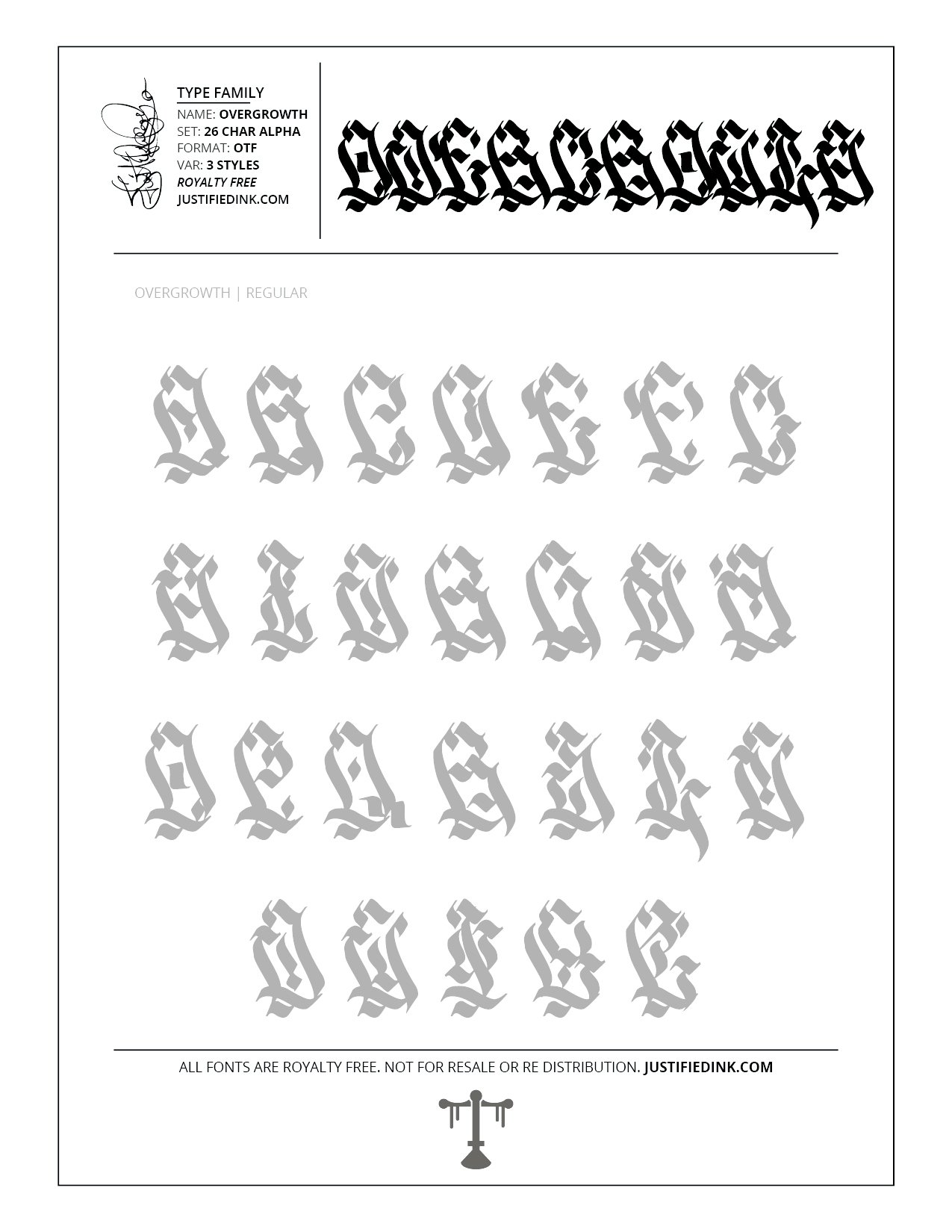
Overgrowth (3 styles) - Custom Font by Justified Ink
NAME: Overgrowth
Overgrowth is dedicated to being extra. Doing as much as can possibly be done... and then a little more. Each weight of the font creates more of the decorative plant elements which sharply shrouds the letters.
This font is part of the collection by Justified Ink, called Blackletter II. After 15+ years creating, I began to focus on building personal libraries of my work. The Blackletter II Collection was created through writing page after page, and countless hours over a 2 year span of daily practice. Each font from this collection has been hand drawn, manually vectored, and custom set as a type-able font. It comes in a full set of 26 char alpha. Each font family has variations in styles and/or non-alpha chars.